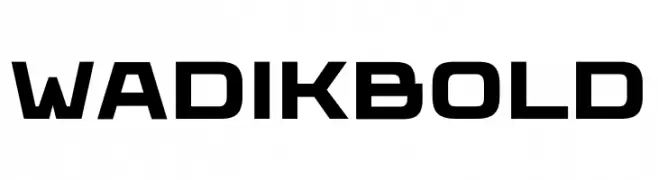
A casual, handwritten font with an architectural flair.
A bold, handwritten font with a playful and informal style.
A graceful, handwritten script font with flowing, interconnected letters.
A bold, geometric font with strong, angular lines and a modern look.
A classic serif font with elegant curves and balanced proportions.
A bold, playful script font with a handwritten style.
A playful, cursive font with elegant loops and a whimsical charm.
A bold, modern italic font with a sleek and dynamic style.
A bold, geometric font with a modern and clean design.
A dynamic, cursive font with elegant, sweeping strokes and a modern calligraphic style.